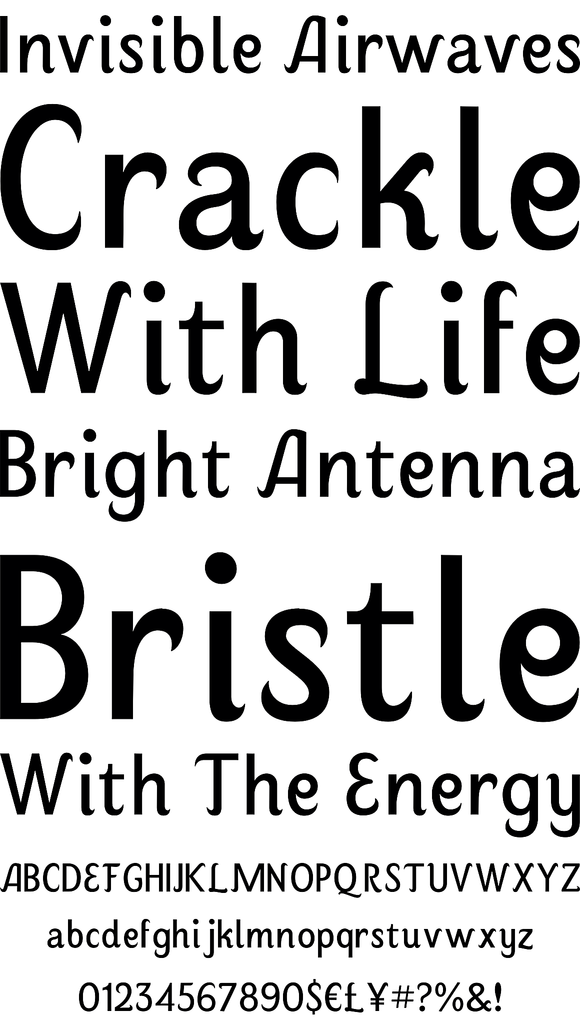
Liebelei
Foundry: Ekke Wolf
"Liebelei" – dalliance, flirtation, hanky-panky (leo.org); kind of diminutive of "Liebe" (German for love) The typeface Liebelei has its roots back in 1932, when Vienna-based painter Rudolf Vogl created the poster for a movie called Liebelei after the popular play by Arthur Schnitzler. Only the title letters existed of that typeface. I loved the letters from first sight and proceeded by adventurously interpreting the missing characters.
The goal was to create letterforms that fit to the original from the 1930s and represent a modern multi-purpose font. It should be an easy-to-use italic font with warm and friendly details and a huge variety of alternates and languages. The characteristic curled ends of most letters provide a script touch to the Liebelei.
The first font entirely designed was the bold one which corresponds to the original poster lettering, although I tweaked the proportions a tiny bit to a more contemporary shape.
The goal was to create letterforms that fit to the original from the 1930s and represent a modern multi-purpose font. It should be an easy-to-use italic font with warm and friendly details and a huge variety of alternates and languages. The characteristic curled ends of most letters provide a script touch to the Liebelei.
The first font entirely designed was the bold one which corresponds to the original poster lettering, although I tweaked the proportions a tiny bit to a more contemporary shape.